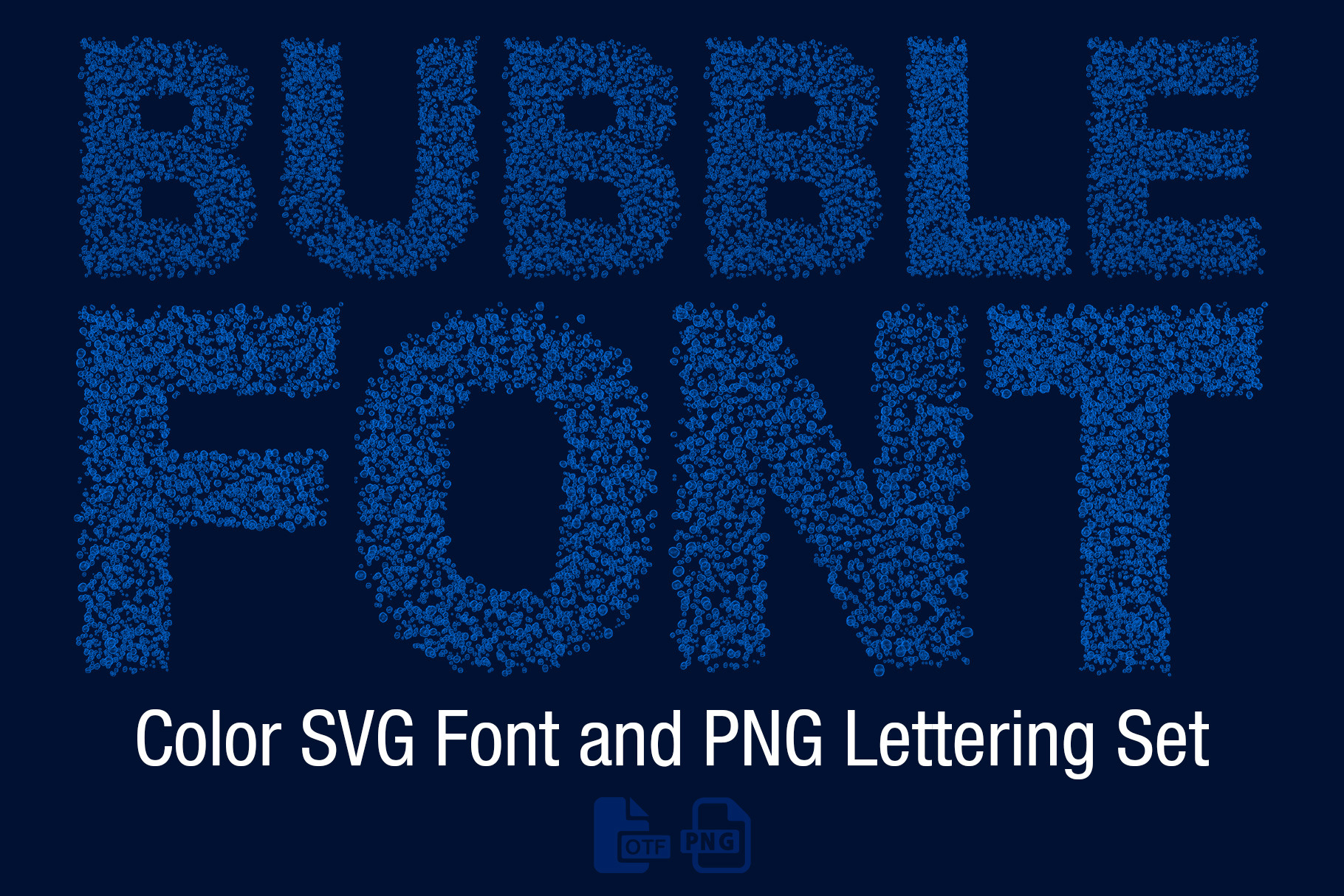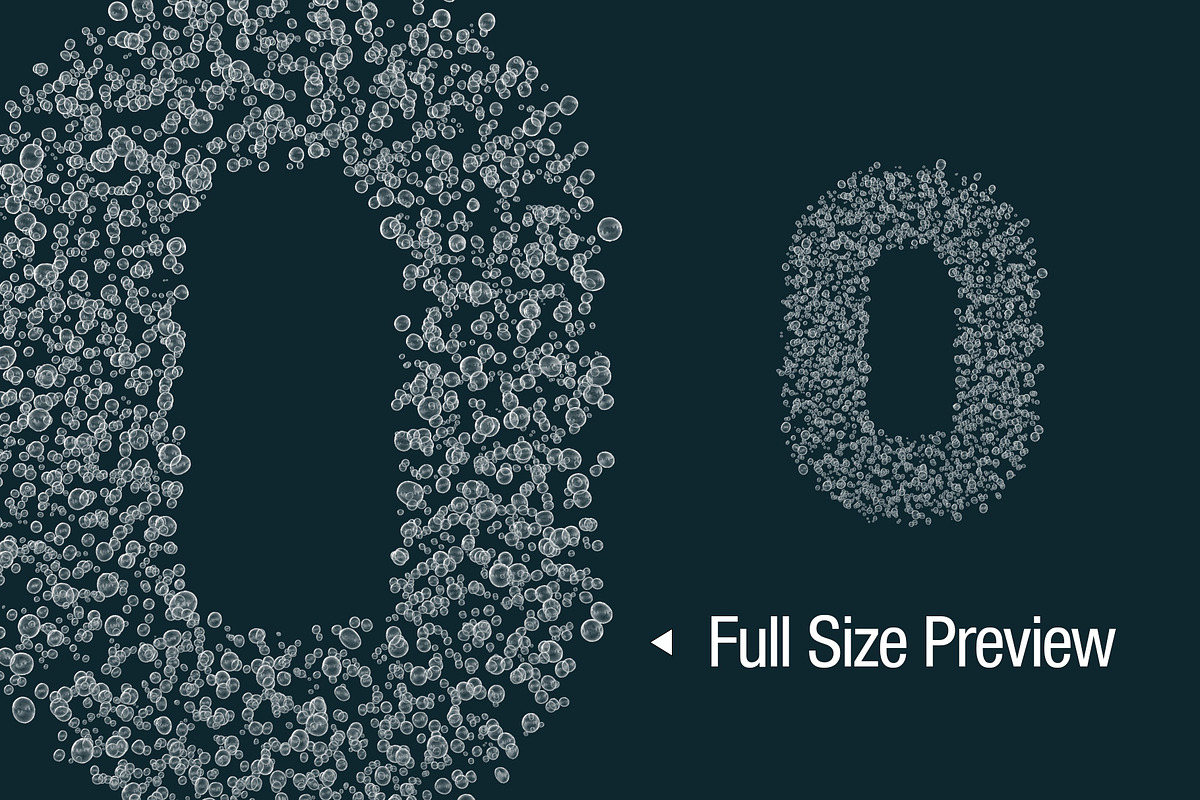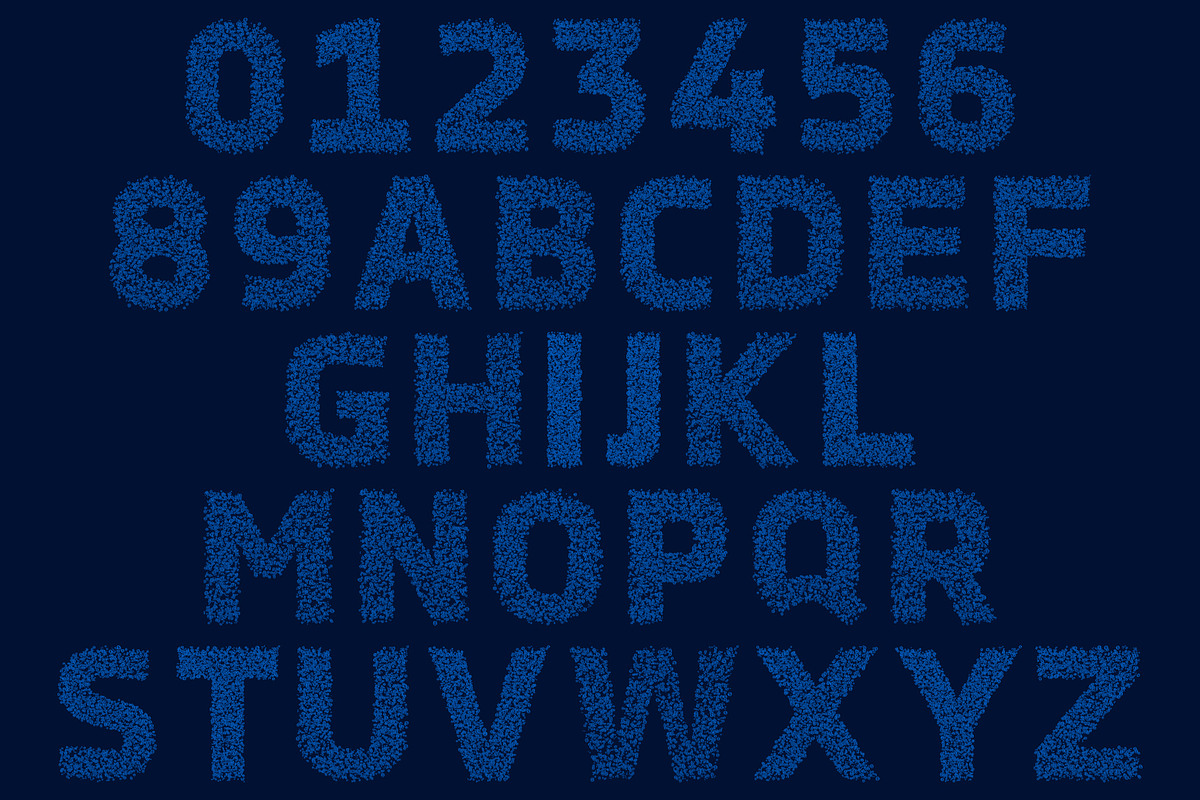
Bubble Font & PNG Set
Bubble 3D Lettering PNG Set and Color SVG Font in OTF Format is a unique and eye-catching typographic design tool that is perfect for creating attention-grabbing headlines, logos, and branding materials. This set includes all uppercase English letters and numbers, giving you the versatility and flexibility you need to create your own custom designs.
With its 3D bubble effect and vibrant color options, this font and PNG set will bring your designs to life, making them stand out and grab the attention of your audience. The font is provided in OTF (OpenType Format), making it easy to install and use in a wide range of design applications, including Adobe Illustrator and InDesign.
This set is perfect for those who are looking to add a fun and playful touch to their designs, whether you're working on a children's book, a social media post, or a marketing campaign. With its unique and versatile design, this Bubble 3D Lettering PNG Set and Color SVG Font in OTF Format is a must-have for any graphic designer or digital artist looking to take their designs to the next level.